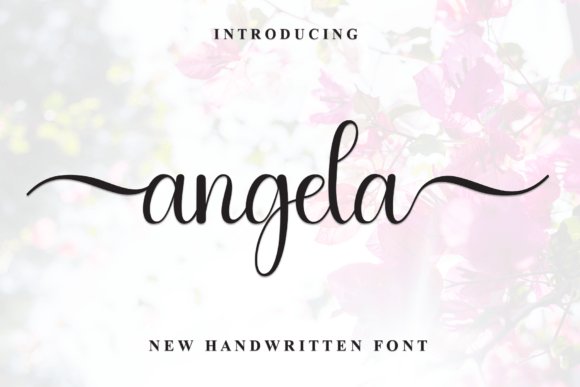
Discover the Enchanting Angela Font: A Game-Changer for Creative Projects
I’ll never forget the time I was working on a wedding invitation project, and my client asked for a font that would make their special day feel truly unique. I scoured the internet, tried out countless fonts, but nothing seemed quite right. That was until I stumbled upon Angela Font. This beautiful, handwritten typeface has been a game-changer for my creative projects, and I’m excited to share its magic with you! ✨
A Closer Look: What Makes Angela Font So Special?
Angela Font is a remarkable handwritten font that brings a unique artistic flair to any project. Its immense charm and beguiling allure make it perfect for adding a touch of elegance and sophistication. Here are some of the things I love about Angela Font:
• ✨ Unique and artistic flair that sets it apart from other fonts
• ✅ Elegant and sophisticated, perfect for high-end projects
• 💫 Natural and intuitive feel that adds warmth to designs
• 🎨 Highly versatile and adaptable to various design styles
While Angela Font is a stunning addition to any project, it’s not without its quirks. Here are a few things to keep in mind:
• ⚠️ Some characters may be a bit too ornate for very formal or traditional designs
• 🤔 Limited availability of certain OpenType features in certain software
The Story Behind Angela Font
Angela Font was designed by a talented typographer who wanted to create a font that would capture the beauty of natural intuitiveness. Inspired by the flowing lines and curves of handwritten script, Angela Font is a testament to the power of creative expression. Whether you’re a designer, crafter, or creative hobbyist, Angela Font is sure to inspire your next project.
What makes Angela Font unique? Angela Font is a handmade font that boasts a unique artistic flair, making it perfect for adding a touch of elegance and sophistication to designs.
Is Angela Font available in different styles or variations? Currently, Angela Font is available in a single style. However, the designer may release additional styles or variations in the future.